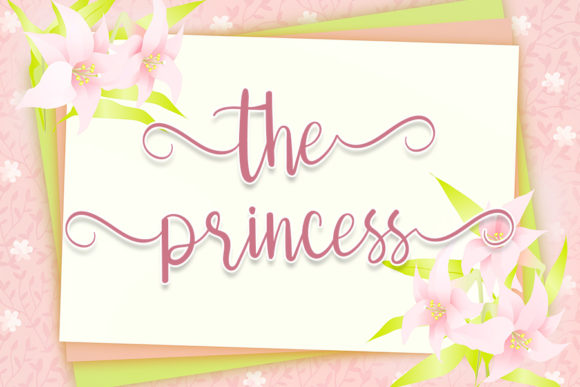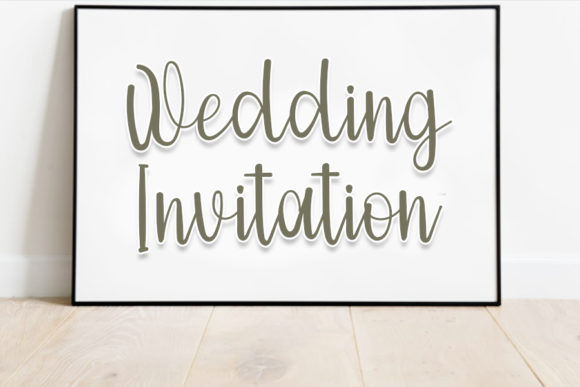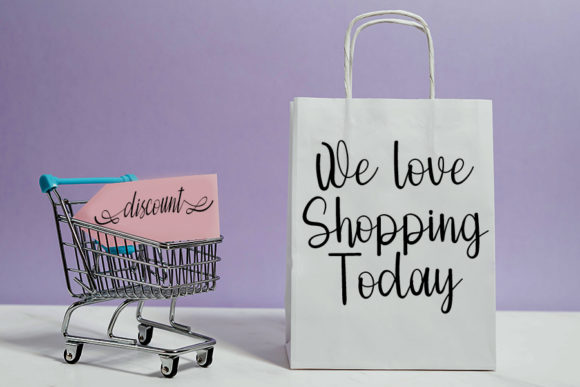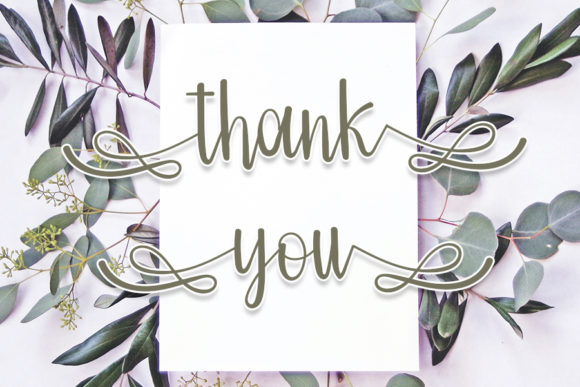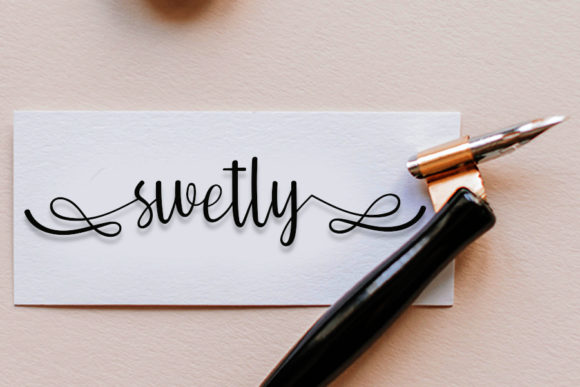
About History Font
History is a superb calligraphy font that offers a wide range of creative possibilities. Its elegant and flowing letterforms make it suitable for various design purposes, from logos and wedding invitations to headings and t-shirts.
The font’s calligraphic style brings a sense of sophistication and artistry to your designs. With its graceful curves and intricate details, History captures the essence of traditional calligraphy, adding a touch of elegance to any project.
One of the standout features of History is its versatility. Whether you’re designing a logo for a luxury brand, creating beautiful wedding stationery, or crafting eye-catching headlines, this font adapts effortlessly to different contexts. Its timeless appeal makes it suitable for both formal and informal designs, allowing you to create a cohesive and polished look across various applications.
Furthermore, History is PUA encoded, which means you have easy access to all the glyphs and swashes it offers. This encoding allows you to explore and utilize a wide variety of decorative elements, alternate characters, and ligatures that are available within the font. By accessing these additional glyphs and swashes, you can truly customize your designs and make them stand out.
Whether you’re looking to add a touch of elegance to your branding, create stunning wedding materials, or make your headlines more captivating, History is a font that can fulfill those needs. Its versatility, combined with its PUA encoding, provides you with the tools to create visually stunning and personalized designs.
In summary, History is a superb calligraphy font that offers elegance and versatility. With its PUA encoding, you can access a wealth of decorative elements and customization options, making it ideal for various design purposes. From logos to wedding invitations and beyond, History enables you to create beautiful and memorable designs with ease.